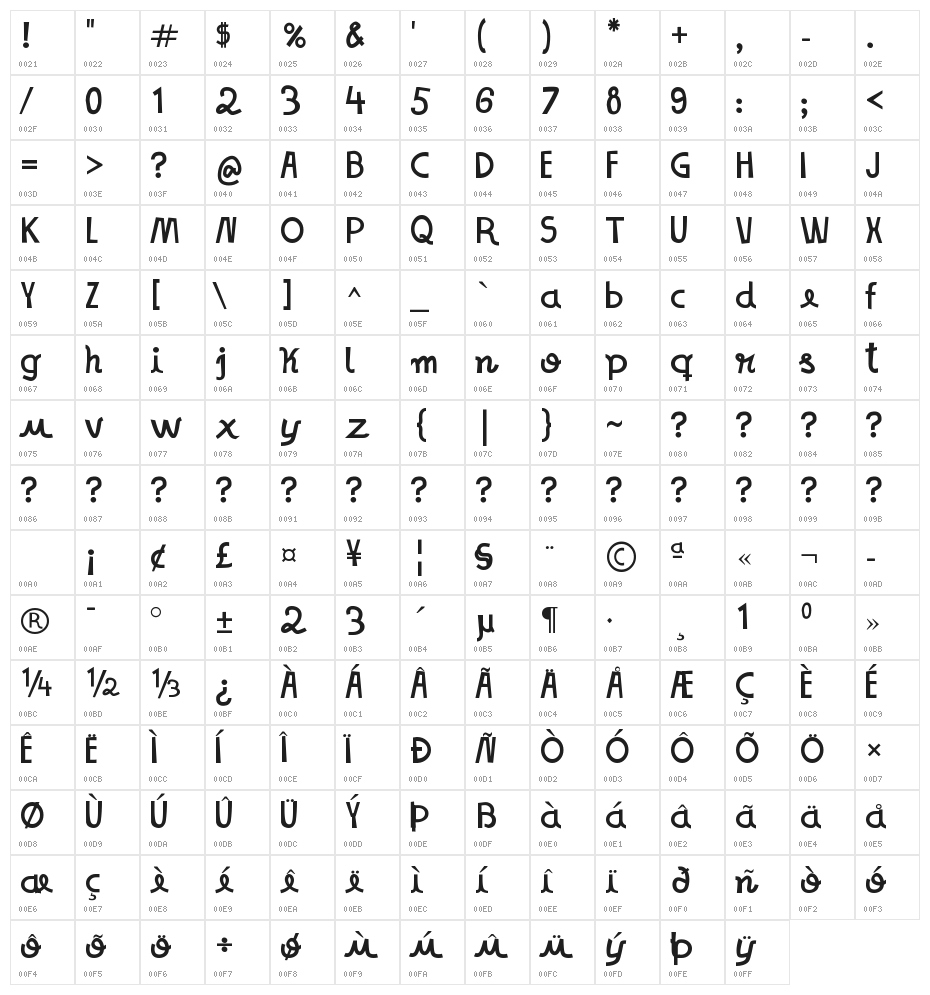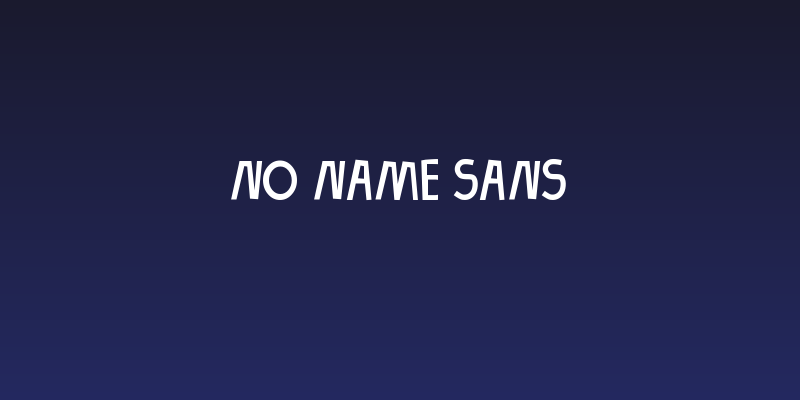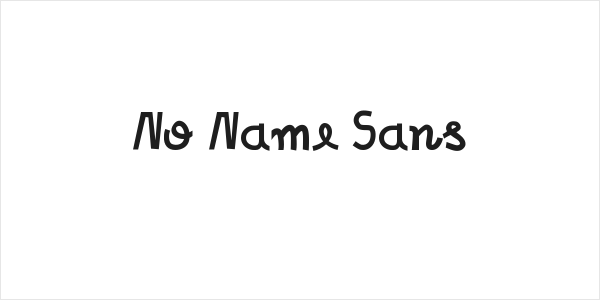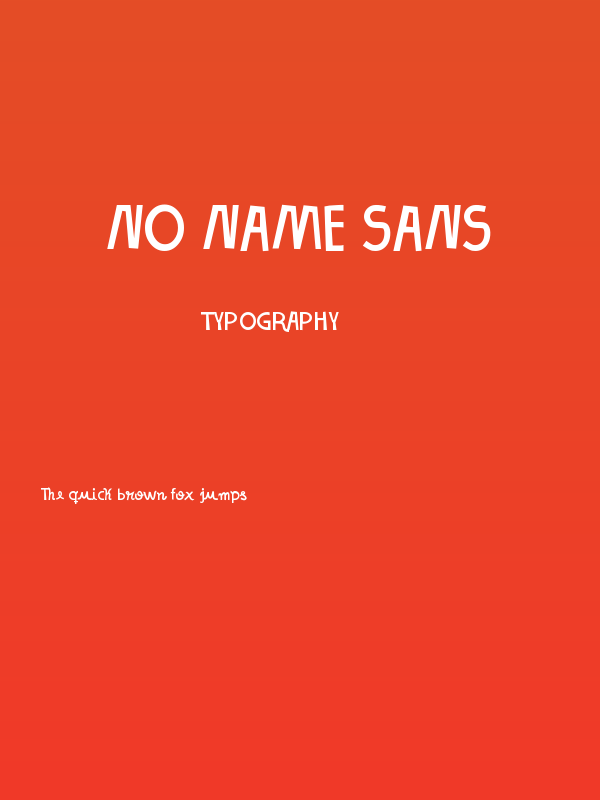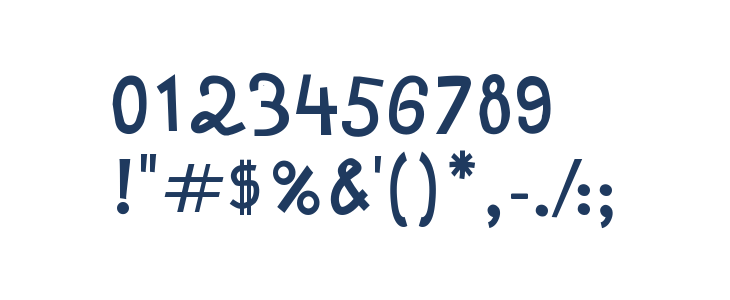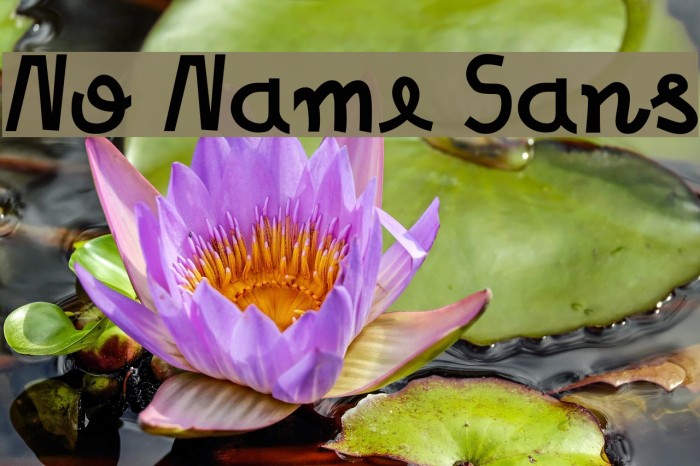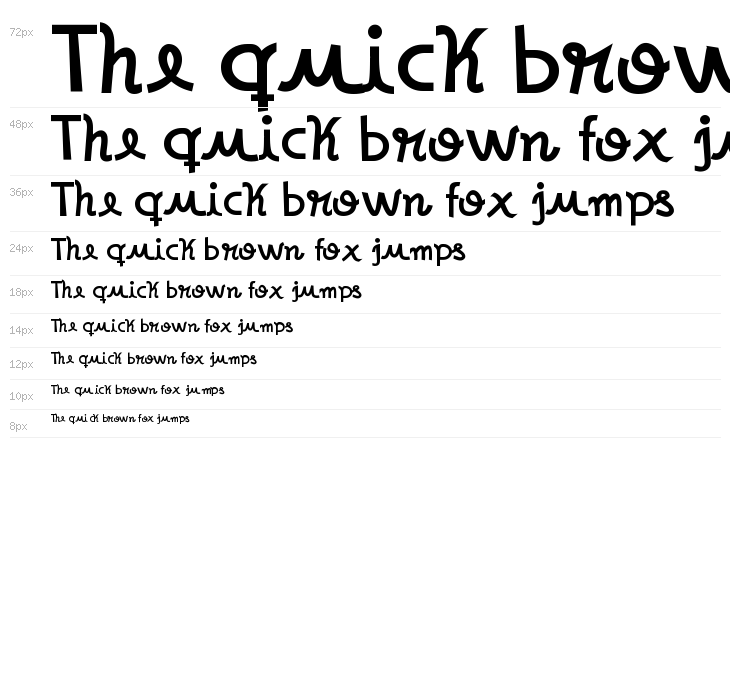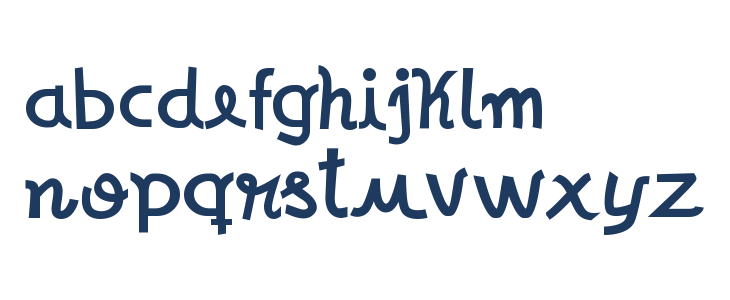
No Name Sans Font
No Name Sans Description
This font features a playful and informal style with a handwritten appearance. The uppercase letters are bold and slightly irregular, giving a dynamic and lively feel. The lowercase letters maintain a consistent flow with rounded edges and a casual script-like quality. Numbers and special characters are designed to match the whimsical nature of the alphabet, making it suitable for creative and fun projects. The overall look is approachable and friendly, ideal for designs that aim to convey warmth and personality.
| Proposed Projects | Ideal for children's books, greeting cards, playful branding, and casual invitations. |